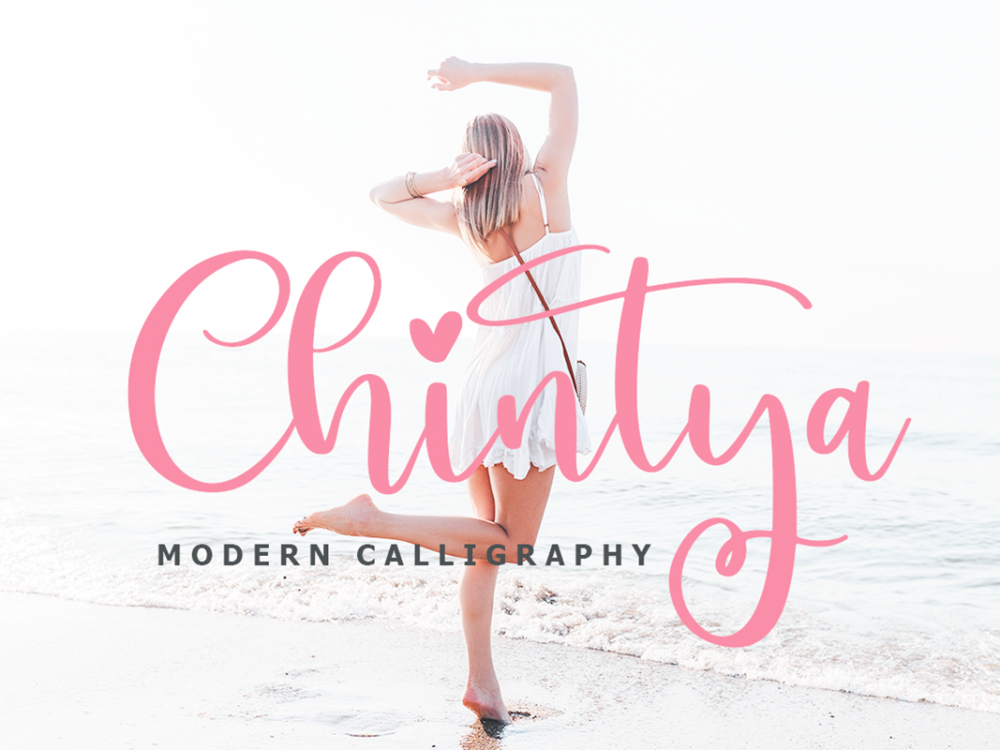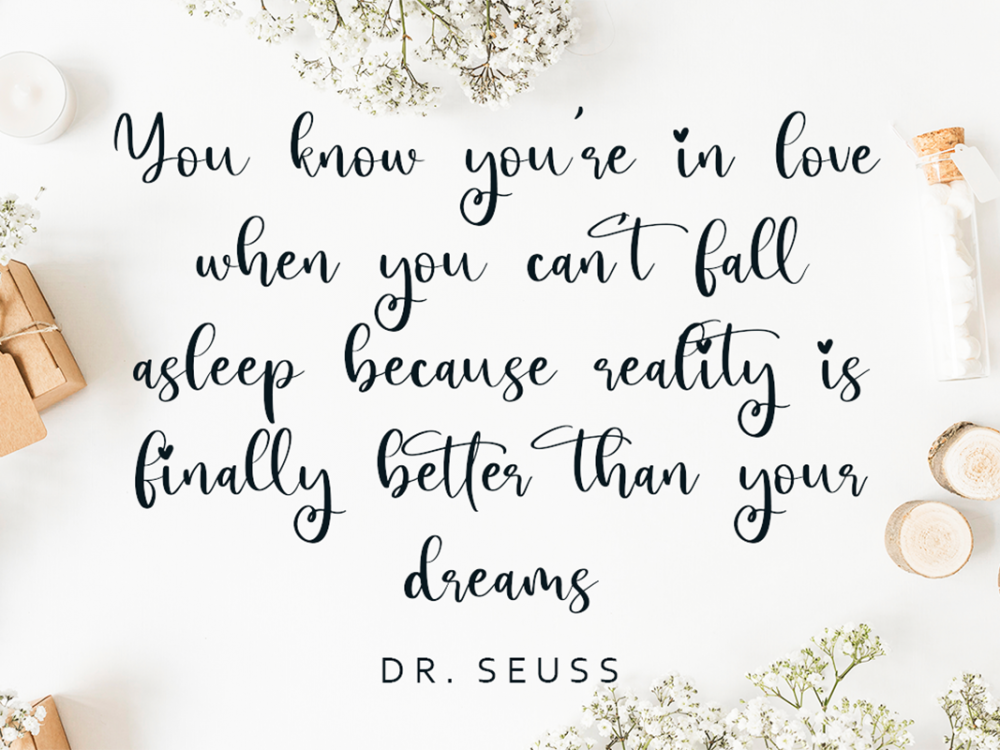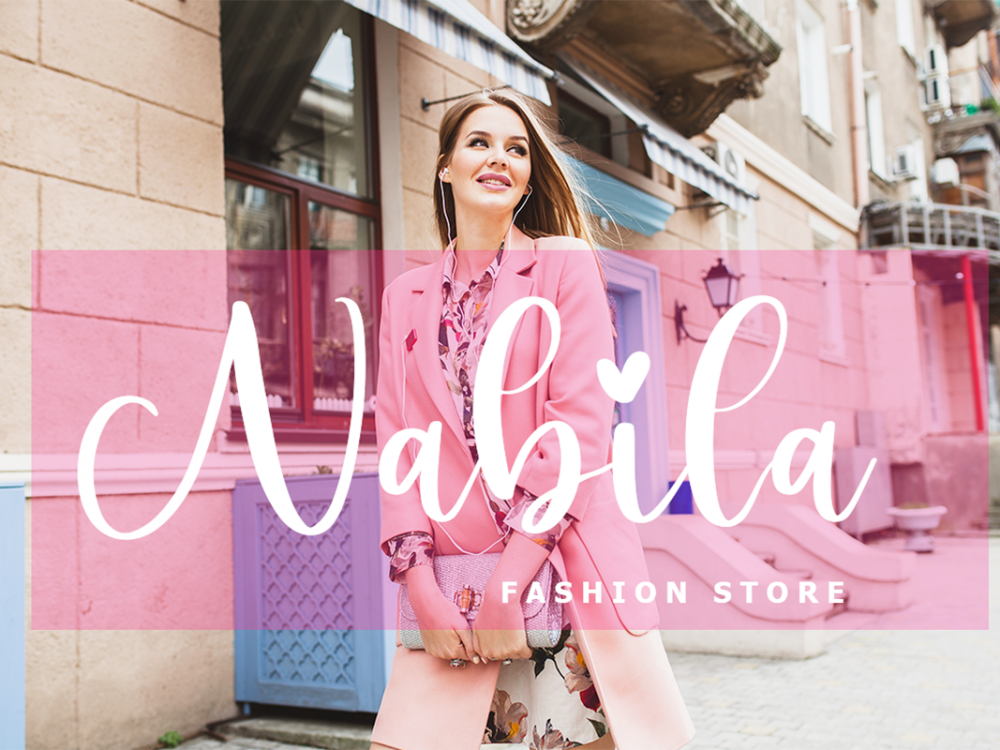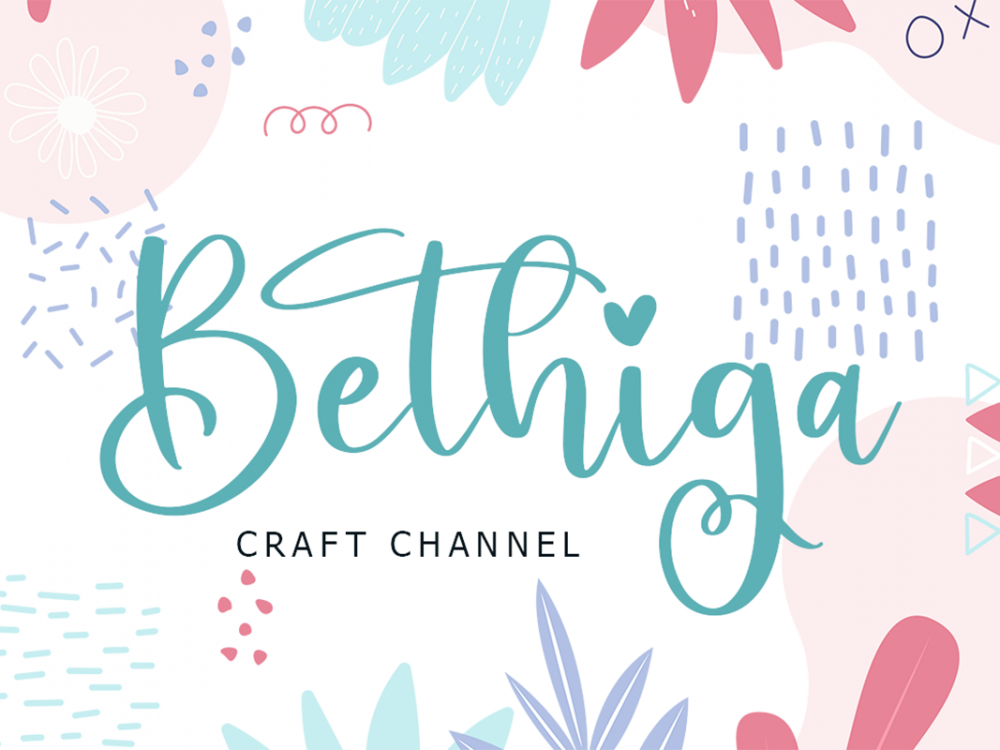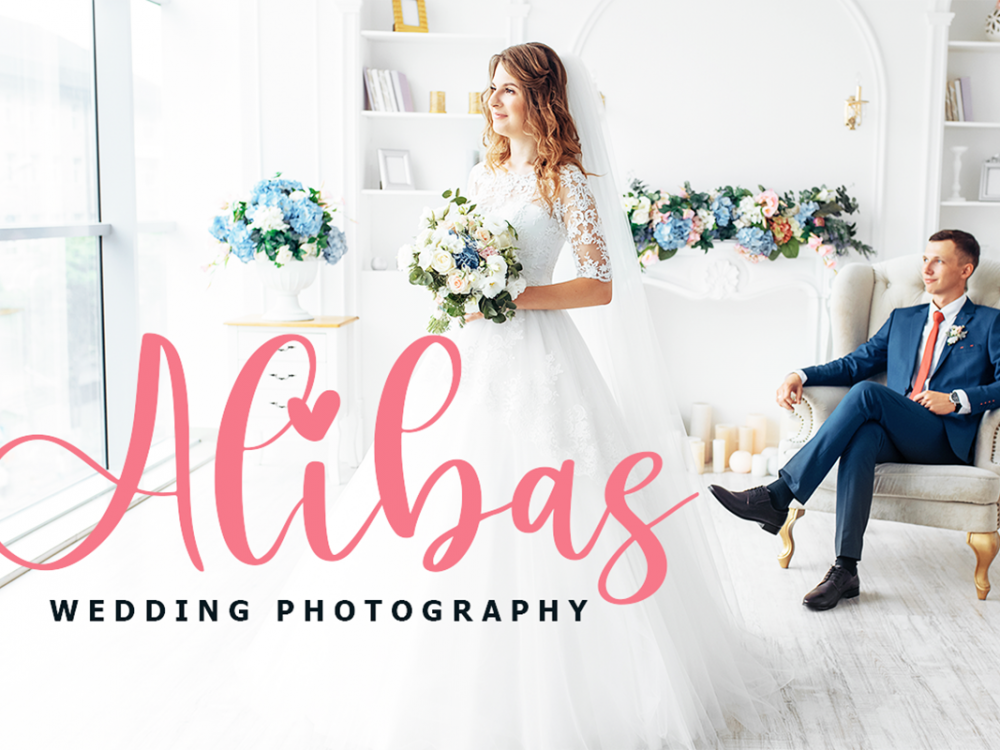
Chintya Free Font
Chintya Free Font is an interesting modern curly scripting font with a modern style. This font is very suitable for creating various projects that require a script font. You can use this font to create memorable romantic posters, wedding invitations, greeting cards, branding, flyers, t-shirt and pillow prints, and more. Improve your professional level using this font. If you like it don’t forget to check out the full version.